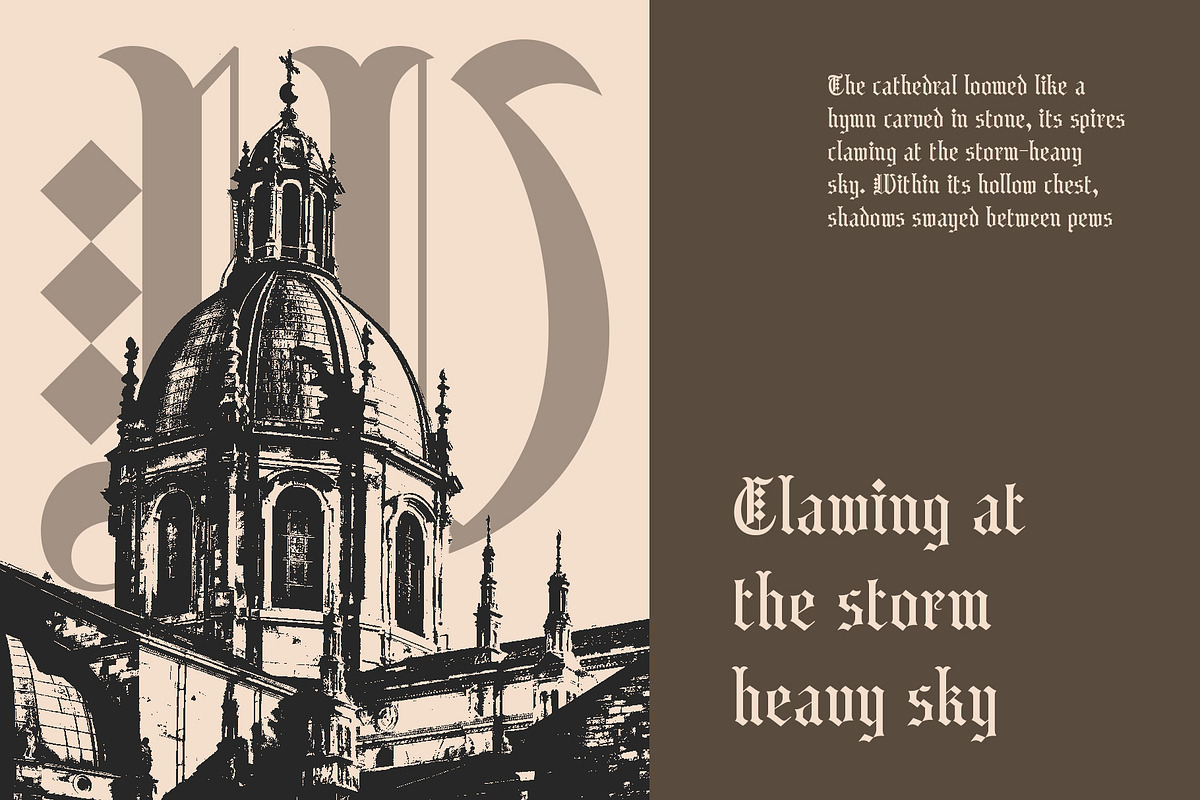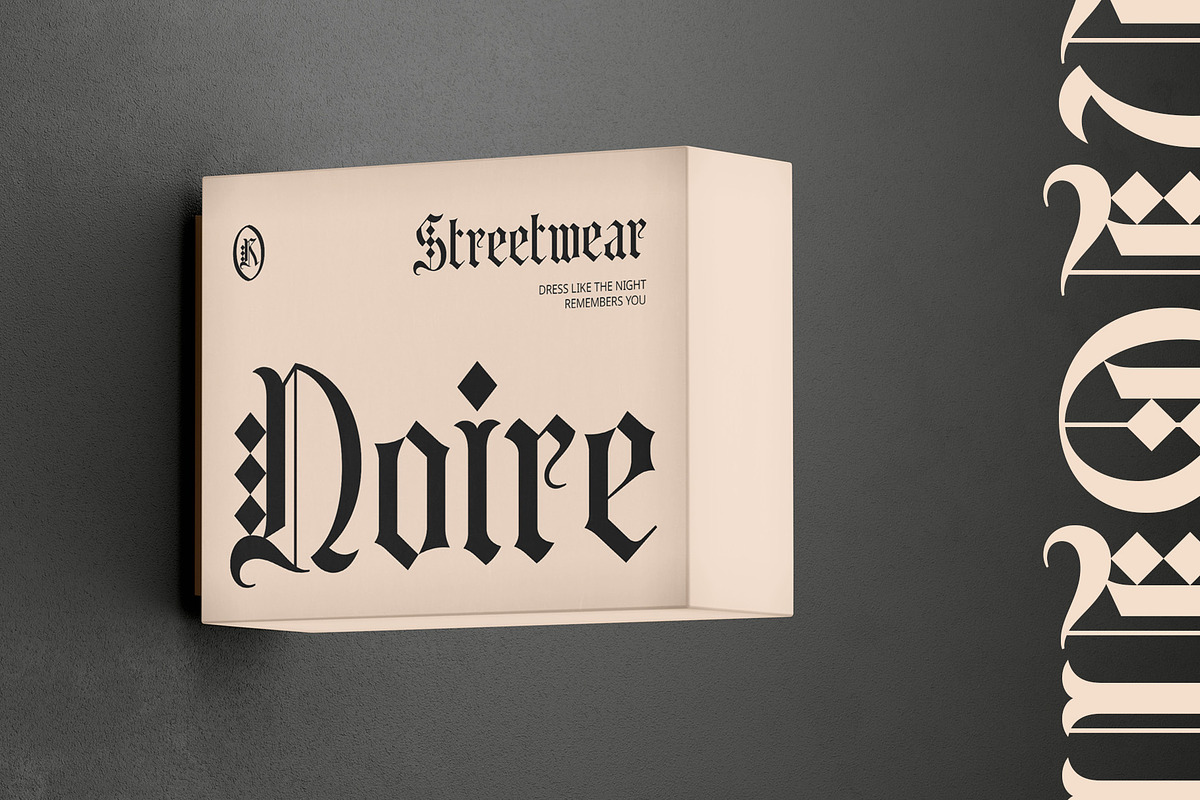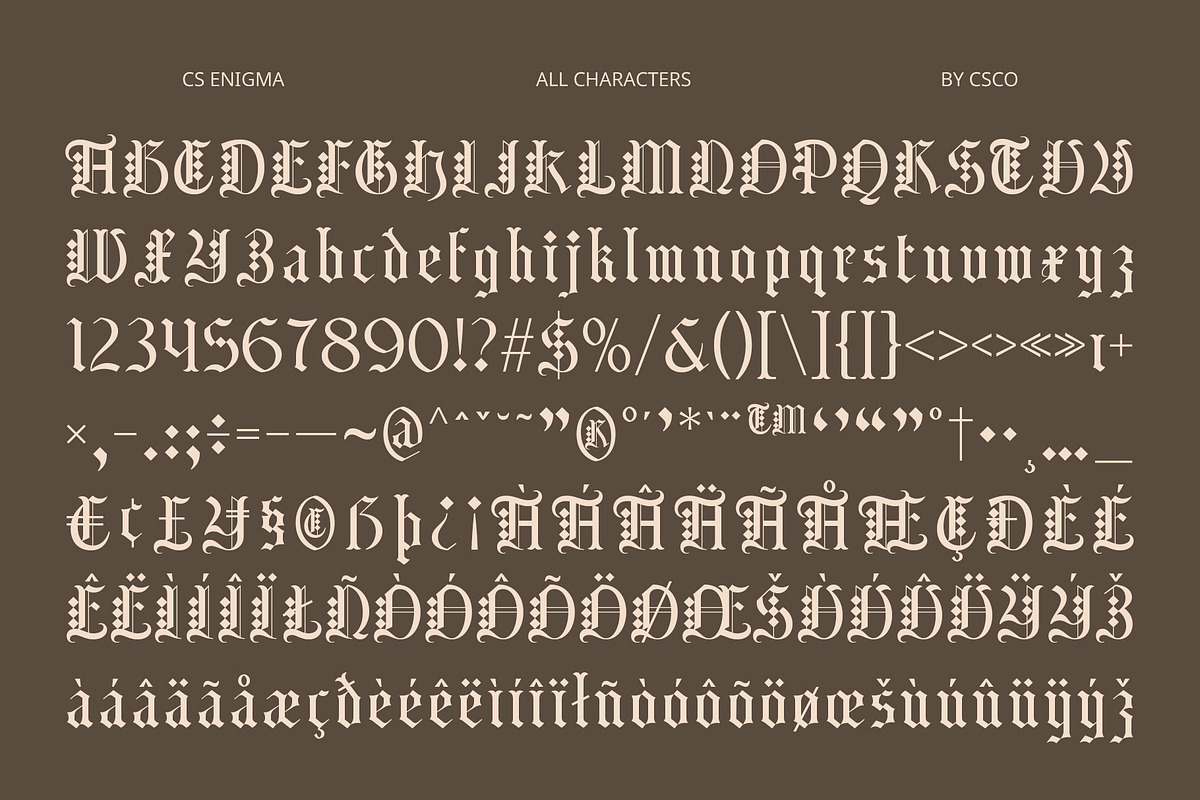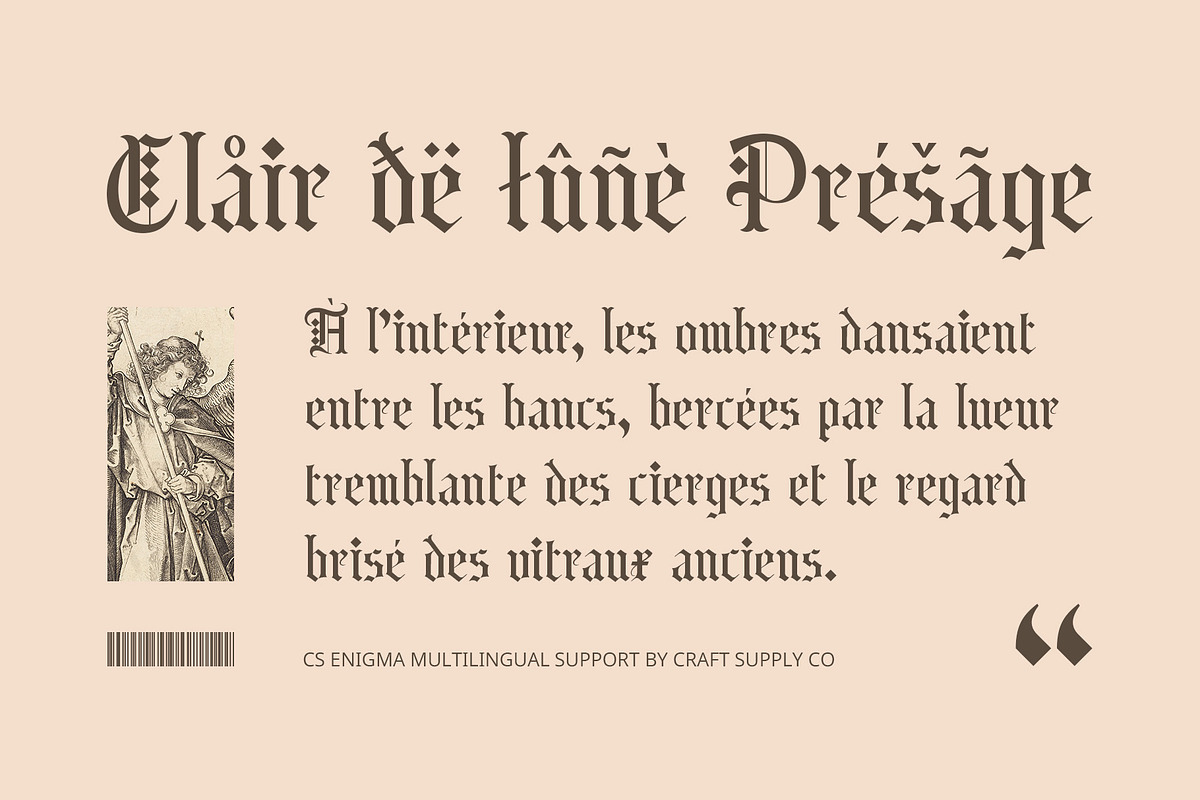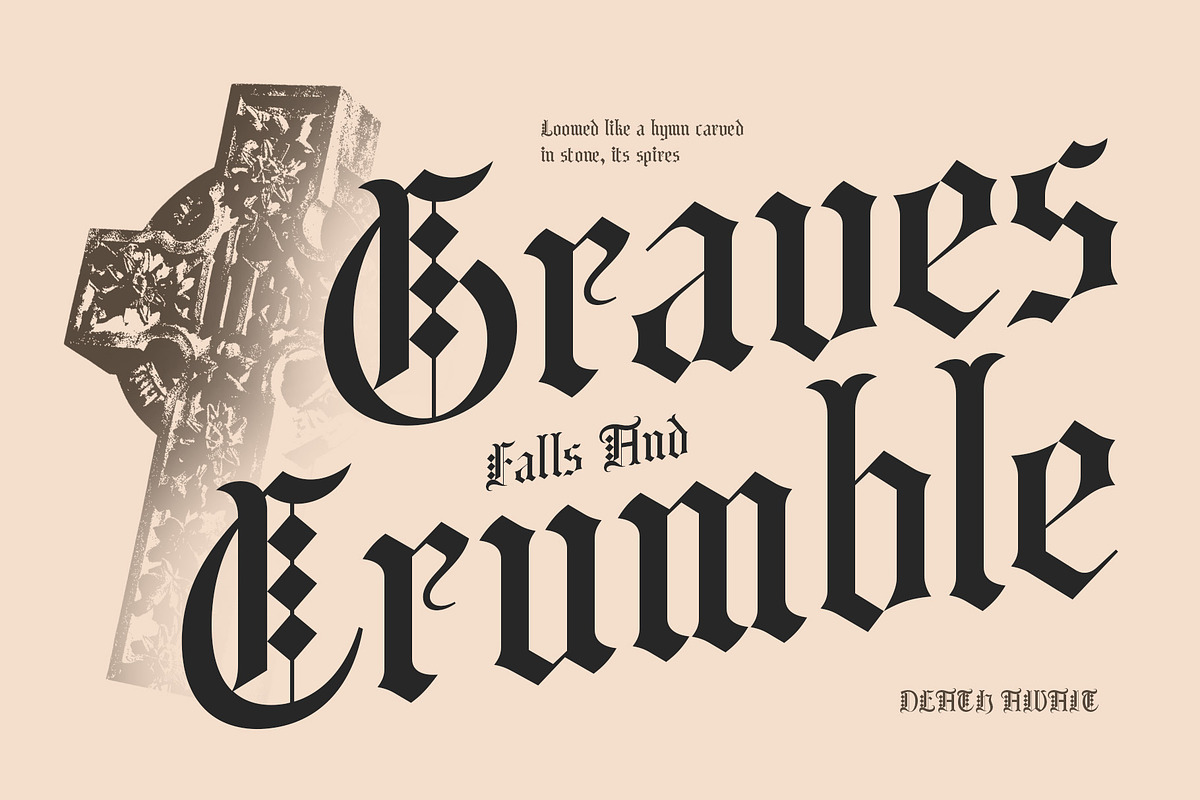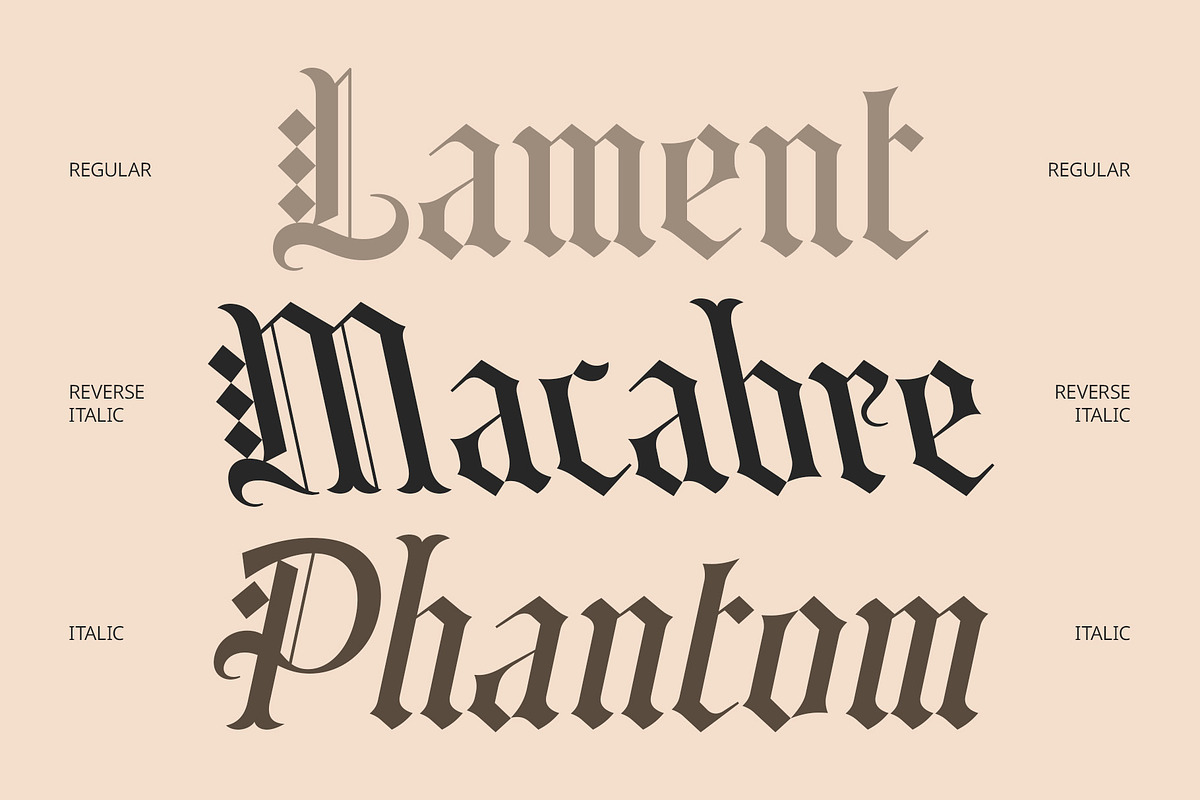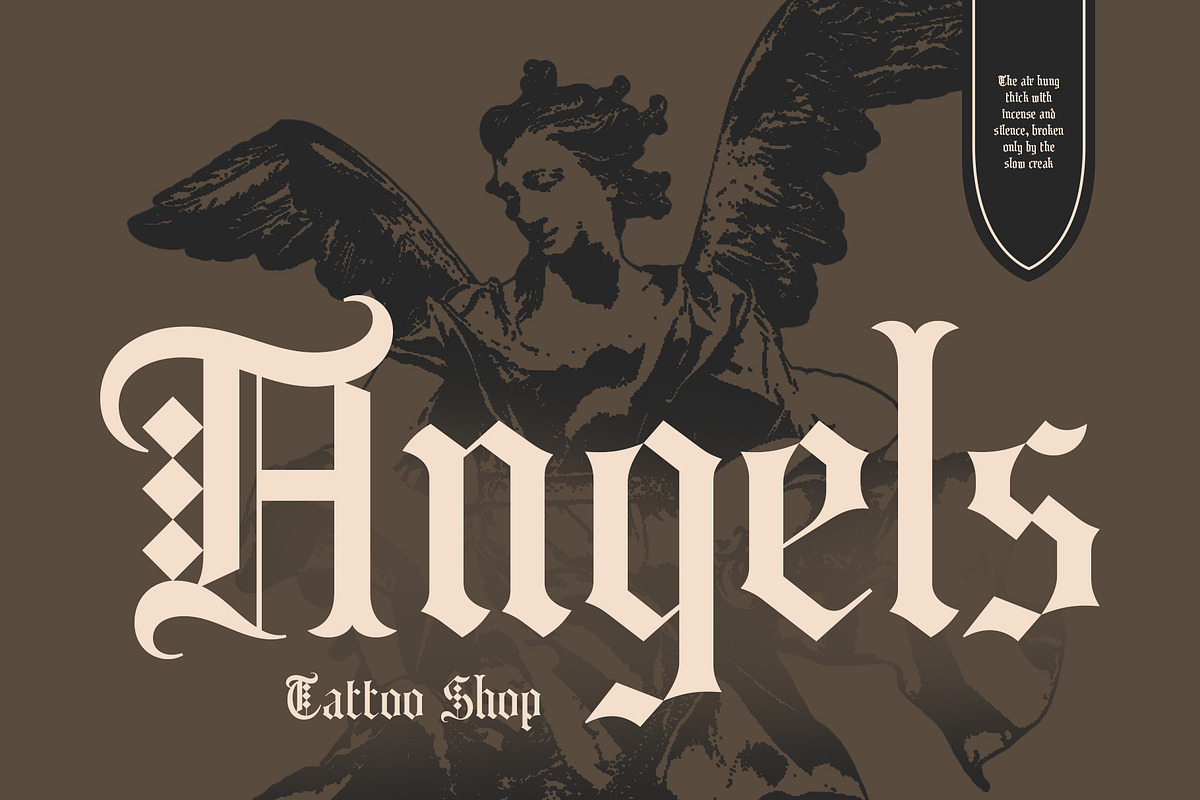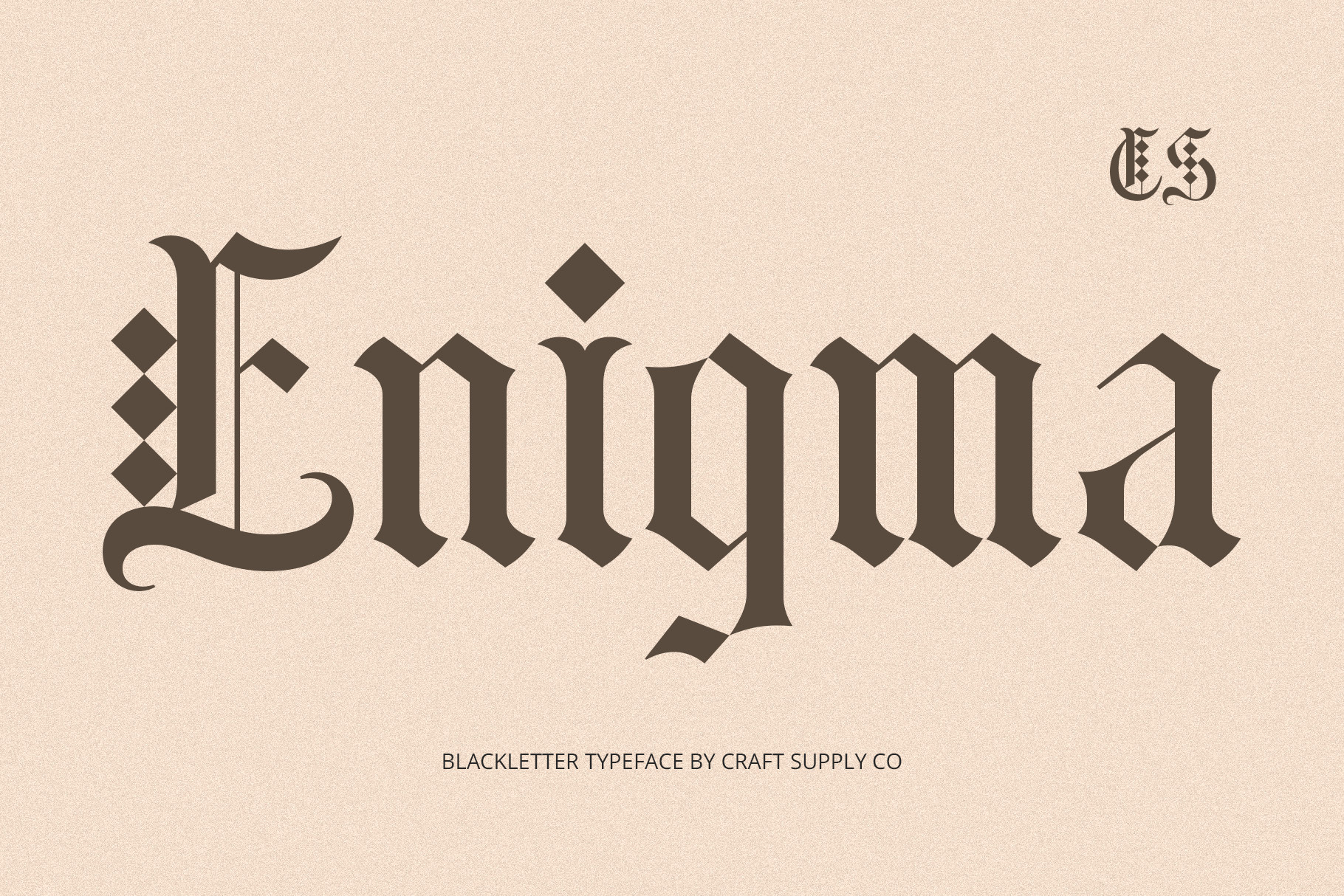
CS Enigma – Blackletter Font
CS Enigma – Blackletter Font: Where Gothic Tradition Meets Contemporary Boldness
Modern Blackletter Display Font CS Enigma is a striking modern blackletter display font that revitalizes the traditional Gothic aesthetic with a contemporary edge. It captures the essence of classic blackletter—sharp, angular strokes, ornamental flair, and a strong visual rhythm—while refining the letterforms with clean lines, modern proportions, and enhanced readability.
Refined Drama with Modern Clarity While retaining the signature drama of blackletter fonts, CS Enigma softens the complexity through simplified structures and balanced contrast. The letters are bold and distinctive, maintaining their Gothic intensity but with a smoother, more adaptable form. This balance of intricacy and clarity makes it versatile enough to use across a range of bold, artistic, or contemporary projects without overwhelming the design.
Ideal for Edgy and Expressive Designs CS Enigma shines in contexts that demand attention—whether it’s a music poster, fashion campaign, edgy branding concept, or experimental visual identity. Its character-rich presence conveys emotion, attitude, and a sense of historic sophistication, making it a powerful choice for creatives looking to blend nostalgia with modern impact.
Versatile Across Creative Fields From digital interfaces to print layouts, CS Enigma offers adaptability and stylistic depth. Whether used for display headlines, album covers, merchandise, or branding that seeks to stand out, this font provides a rich typographic voice.
- CS Enigma Regular
- CS Enigma Italic
- CS Enigma Reverse Italic